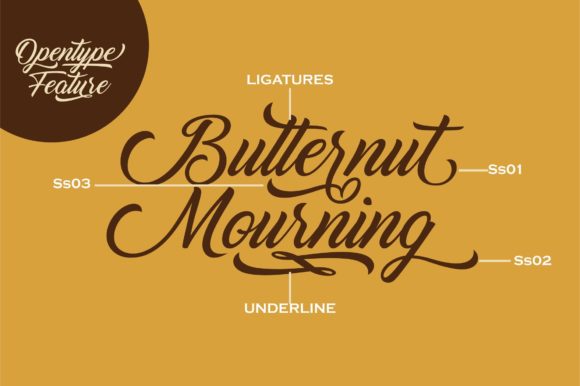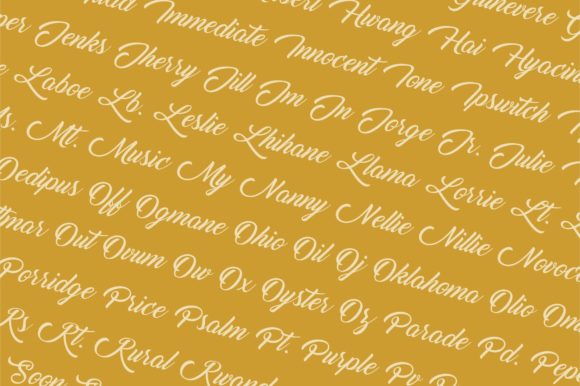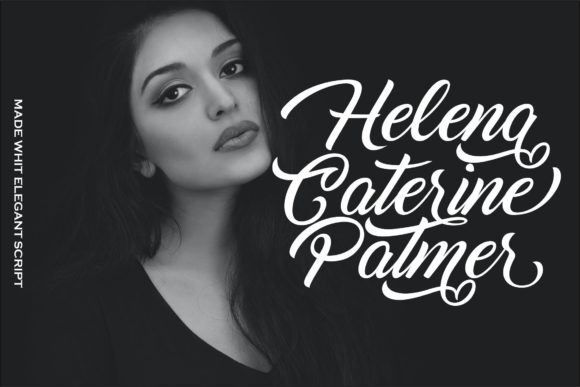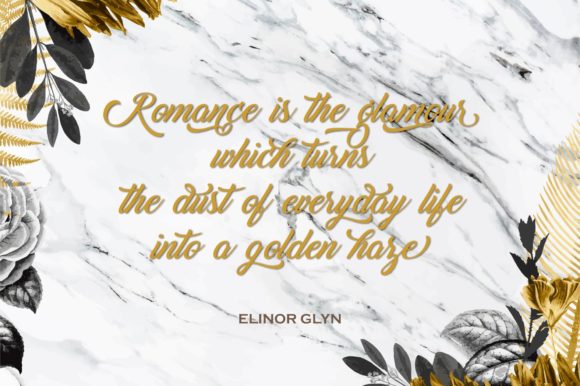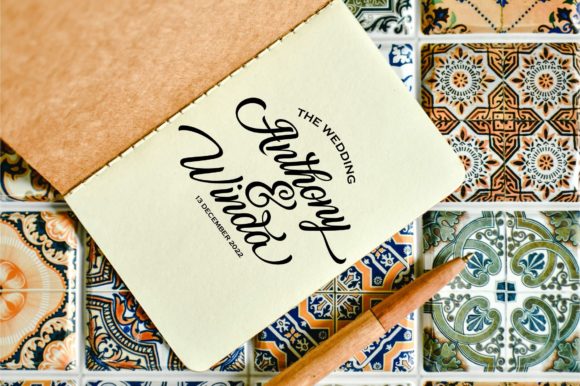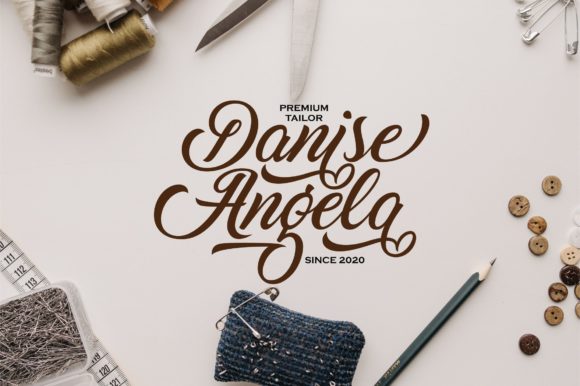
Elegant Font: The Perfect Choice for Creative Projects
Are you a designer, crafter, or DIY enthusiast looking for a font that can add a touch of elegance and friendliness to your creative projects? Look no further than the Elegant font! This cute and casual handwritten font is designed to bring a warm and approachable feel to any design, making it perfect for a wide range of applications.
What Makes Elegant Font So Special?
Elegant font is more than just a beautiful and elegant typeface. It’s a versatile and user-friendly font that is PUA (Private Use Area) encoded, which means that you can easily access all of the glyphs and swashes with ease. This makes it simple to create stunning calligraphy scripts, social media posts, and DIY projects that are sure to impress.
Key Features of Elegant Font
- Cute and Casual Handwritten Style: Elegant font has a warm and friendly feel that’s perfect for creating approachable and inviting designs.
- PUA Encoded: With PUA encoding, you can access all of the glyphs and swashes with ease, making it simple to create beautiful and intricate designs.
- Multipurpose: Whether you’re creating social media posts, calligraphy scripts, or DIY projects, Elegant font is the perfect choice.
- Elegant and Refined: Despite its casual feel, Elegant font has an undeniable air of elegance that’s perfect for creating sophisticated designs.
Elegant font is a dream come true for designers and crafters who want to add a personal touch to their creations. Whether you’re creating custom wedding invitations, branding materials, or social media graphics, Elegant font is the perfect choice. Its friendly and approachable feel makes it perfect for:
- Instagram and Social Media Graphics: Stand out on social media with Elegant font’s cute and casual style.
- Calligraphy Scripts: Create beautiful and intricate calligraphy scripts with ease using Elegant font’s PUA encoded glyphs and swashes.
- DIY Projects: Add a personal touch to your DIY projects, such as handmade cards, gift tags, and more.
- Branding and Packaging: Use Elegant font to create custom branding materials, such as logos, labels, and packaging.
Tips for Using Elegant Font
Here are a few tips for getting the most out of Elegant font:
- Experiment with Glyphs and Swashes: With PUA encoding, you can easily access all of the glyphs and swashes to create unique and intricate designs.
- Pair with Other Fonts: Try pairing Elegant font with other fonts to create stunning contrast and visual interest.
- Use for Headings and Titles: Elegant font is perfect for headings and titles, adding a touch of elegance and sophistication to any design.
Elegant font is a versatile and user-friendly font that’s perfect for designers, crafters, and DIY enthusiasts. With its cute and casual handwritten style, PUA encoding, and multipurpose design, Elegant font is the perfect choice for a wide range of creative projects. Whether you’re creating social media graphics, calligraphy scripts, or DIY projects, Elegant font is sure to bring a touch of elegance and friendliness to your designs.